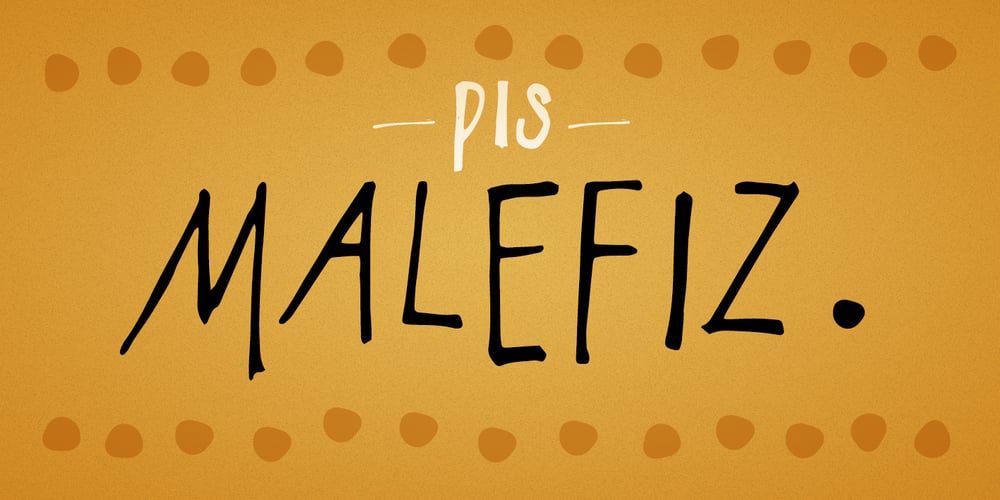
PiS Malefiz Font Family was designed by Hannes Siengalewicz and published by PiS. PiS Malefiz contains 5 styles and family package options. PiS Malefiz is inspired by the hand-drawn type on the package of the german 60’s version boardgame „Malefiz“, also known as Barricade or Barricata. Extended to five hand-drawn weights PiS Malefiz turned out to be the weird lovechild of Saul Bass and Ralph Steadman, fun and childish plus angry and strange. Just as playing the boardgame, PiS Malefiz is a wild and superfast rollercoaster ride of emotions! Combine the five interchangeable weights for total whackyness or use the clean and legible thin and regular versions for sleek and slender slanting. Have fun! Keep the dice rolling!